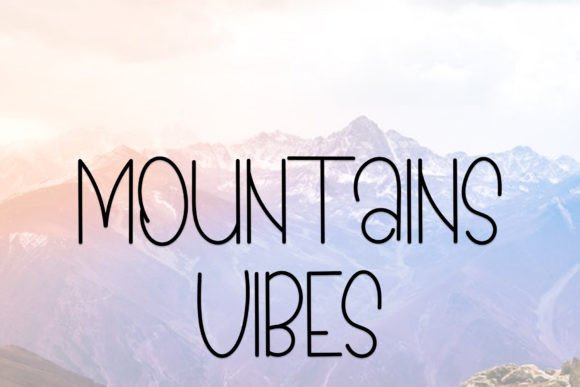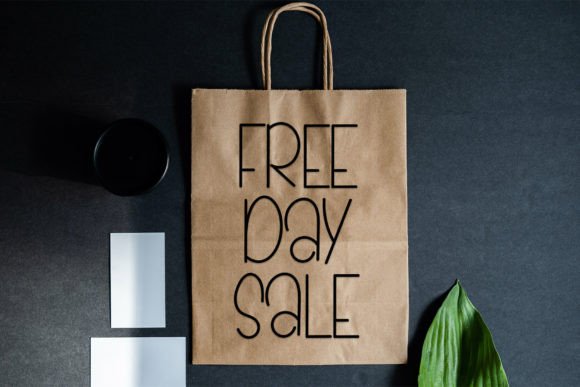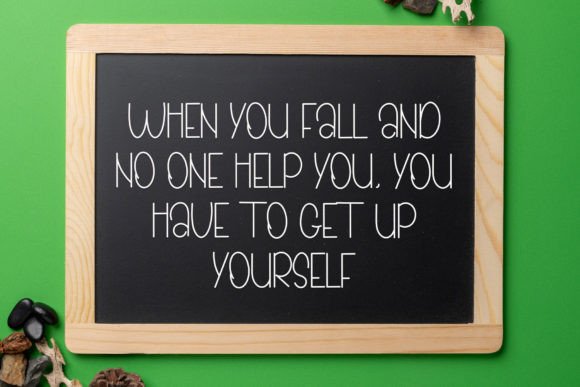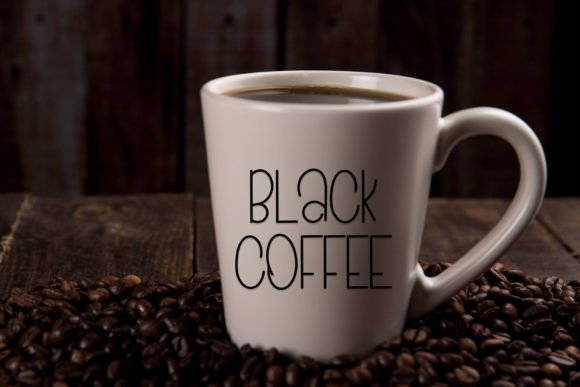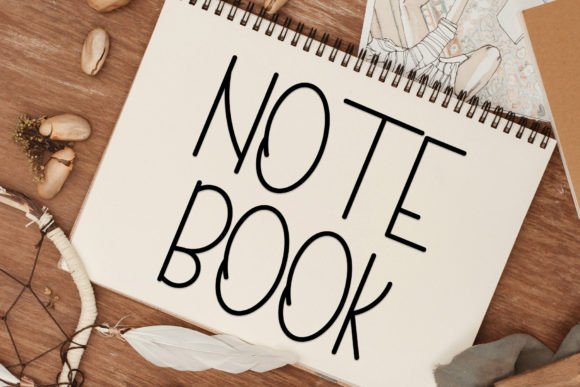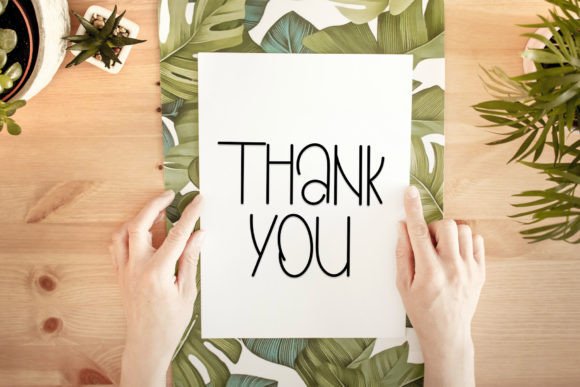
Introduction to September Bright Font
Imagine you’re sitting in your cozy home office on a crisp fall morning, surrounded by the warmth of golden light streaming through the windows. Your computer is humming in the background, and you’re about to embark on a creative project that will showcase your artistic skills. The perfect font can make all the difference, and that’s where the September Bright Font comes in – a true game-changer for designers looking to elevate their high-quality designs.
With its classy calligraphic influences and fresh, contemporary feel, the September Bright Font is a valuable design resource that can take your creative project to new heights. Its transparent background allows for seamless integration with any background, making it a versatile choice for designers who want to add a touch of elegance to their work. And the best part? You can download it for free, making it an accessible addition to your design toolkit.
Key Features of September Bright Font
- High-quality design with a transparent background, ideal for creative projects
- Includes 6 unique font styles, each with its own characteristics and uses
- Perfect for use in graphic design, digital art, and other creative projects requiring a modern, clean aesthetic
- September Bright Font is a versatile design resource that can be used for a variety of applications, from branding and marketing materials to digital art and more
Honest Review: September Bright Font
As a designer, I’m always on the lookout for high-quality design resources that can elevate my creative projects. Recently, I stumbled upon the September Bright Font, and I’m excited to share my honest review with you.
- ✨ Beautiful and modern design aesthetic that’s perfect for any creative project.
- ✨ Highly versatile and can be used for a variety of applications, from branding to digital products.
- ⚠️ Limited character set, which may not be ideal for longer text-based projects.
- ⚠️ Not suitable for printing due to its digital-only design.
Overall, I’m impressed with the September Bright Font. Its high quality and modern design make it a great addition to any designer’s toolkit. While it may have a few limitations, it’s still a valuable resource for any creative project.
The September Bright Font is ideal for designing social media graphics, brochures, and posters. Its high-quality design and transparent background feature make it perfect for creating eye-catching visuals.
Alternatives to September Bright Font
Open Sans is a high-quality, sans-serif font that works well for a variety of design projects, including web design, graphic design, and creative projects. It features a transparent background and clean lines, making it an excellent choice for modern designs. Open Sans is free to download and can be used in both personal and commercial projects.
Compared to September Bright Font, Open Sans is more versatile and can be used in a wider range of design contexts. While September Bright Font has a more playful feel, Open Sans is more neutral and can be used in a variety of design styles.
Lato is a high-quality, sans-serif font that is perfect for design projects that require a clean and modern look. It features a transparent background and a sleek design that makes it ideal for creative projects, including web design, graphic design, and advertising. Lato is free to download and can be used in both personal and commercial projects.
Compared to September Bright Font, Lato is more formal and can be used in a wider range of design contexts, including business and corporate designs. While September Bright Font has a more playful feel, Lato is more professional and can be used in serious design projects.